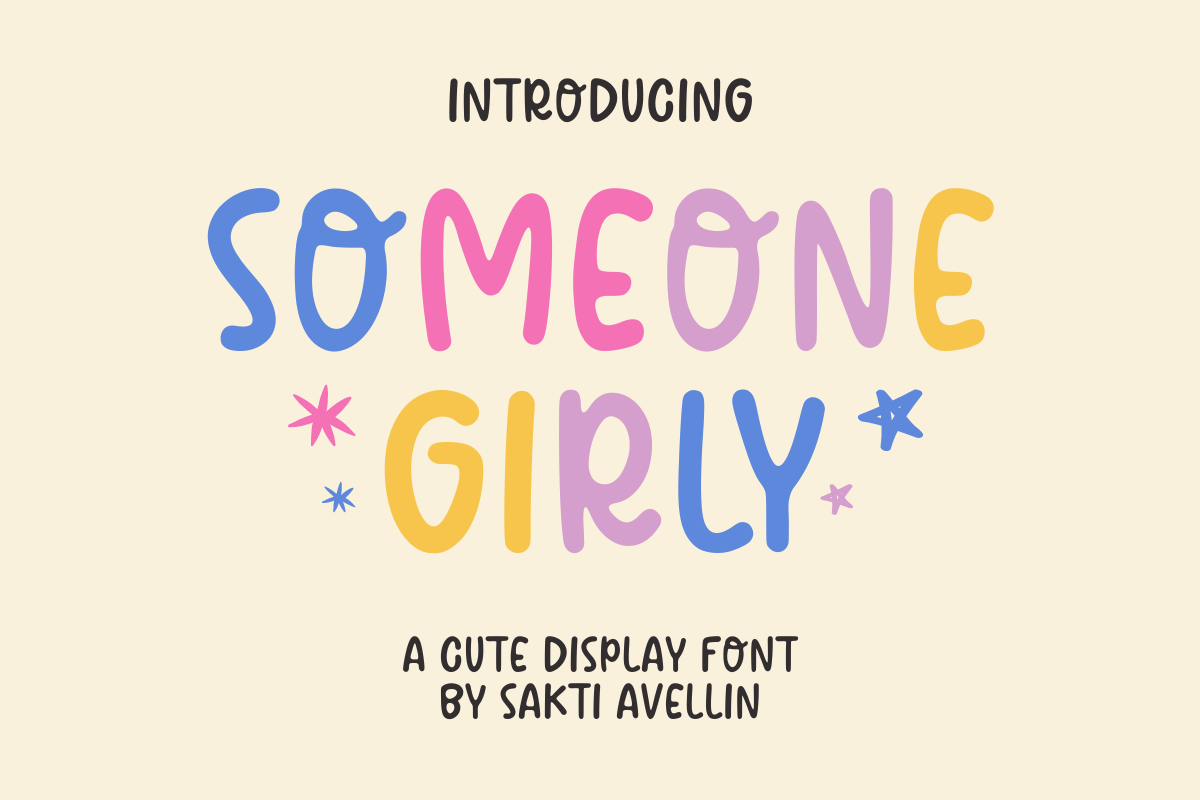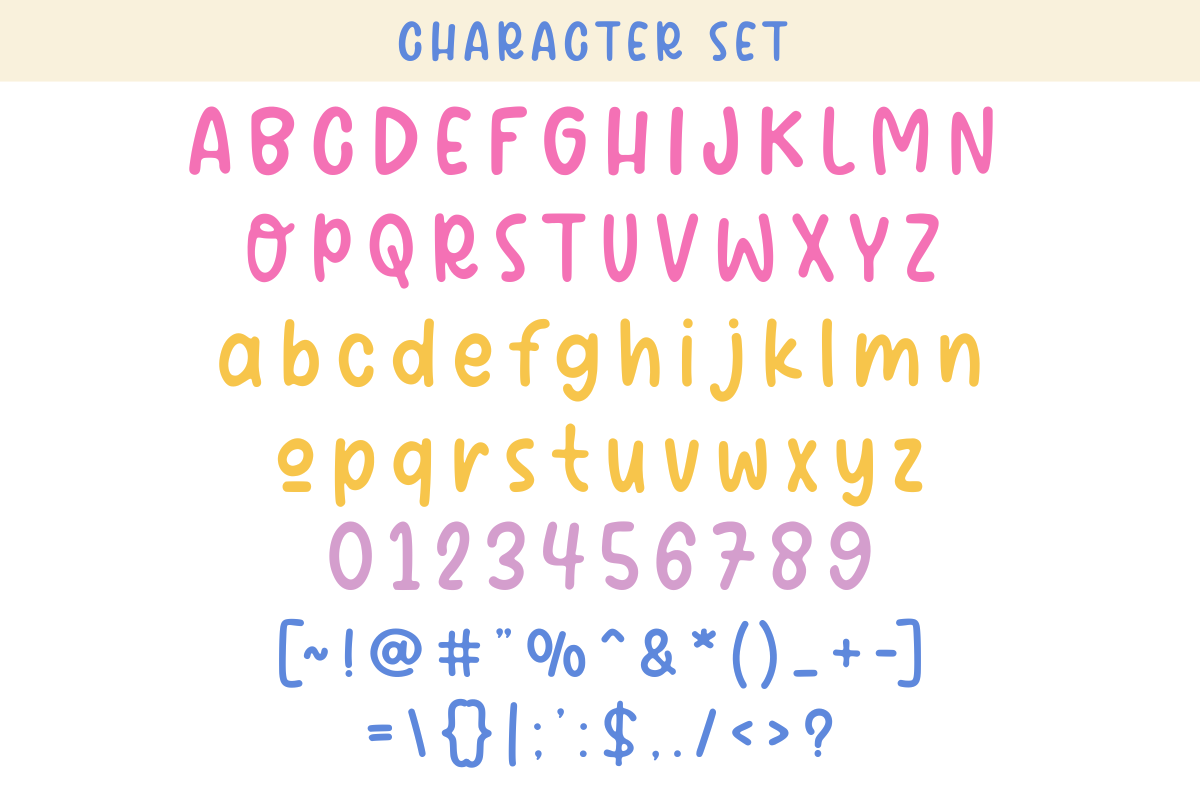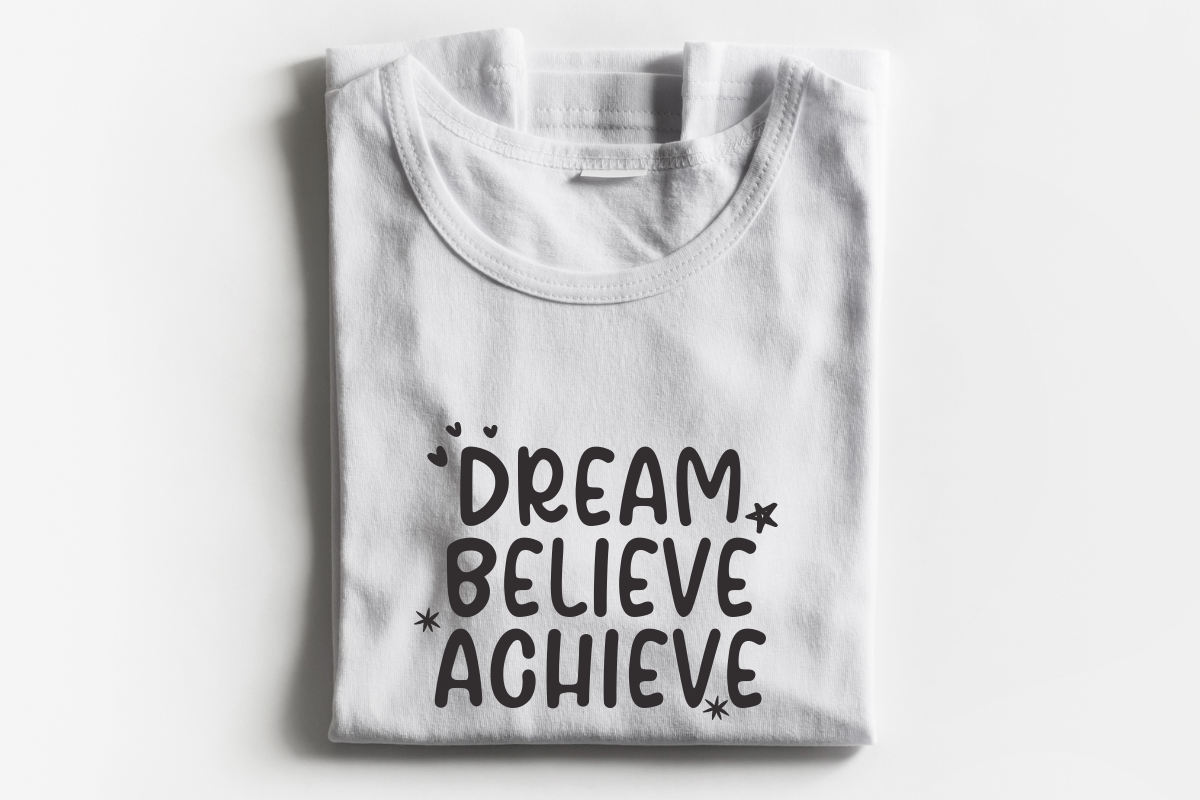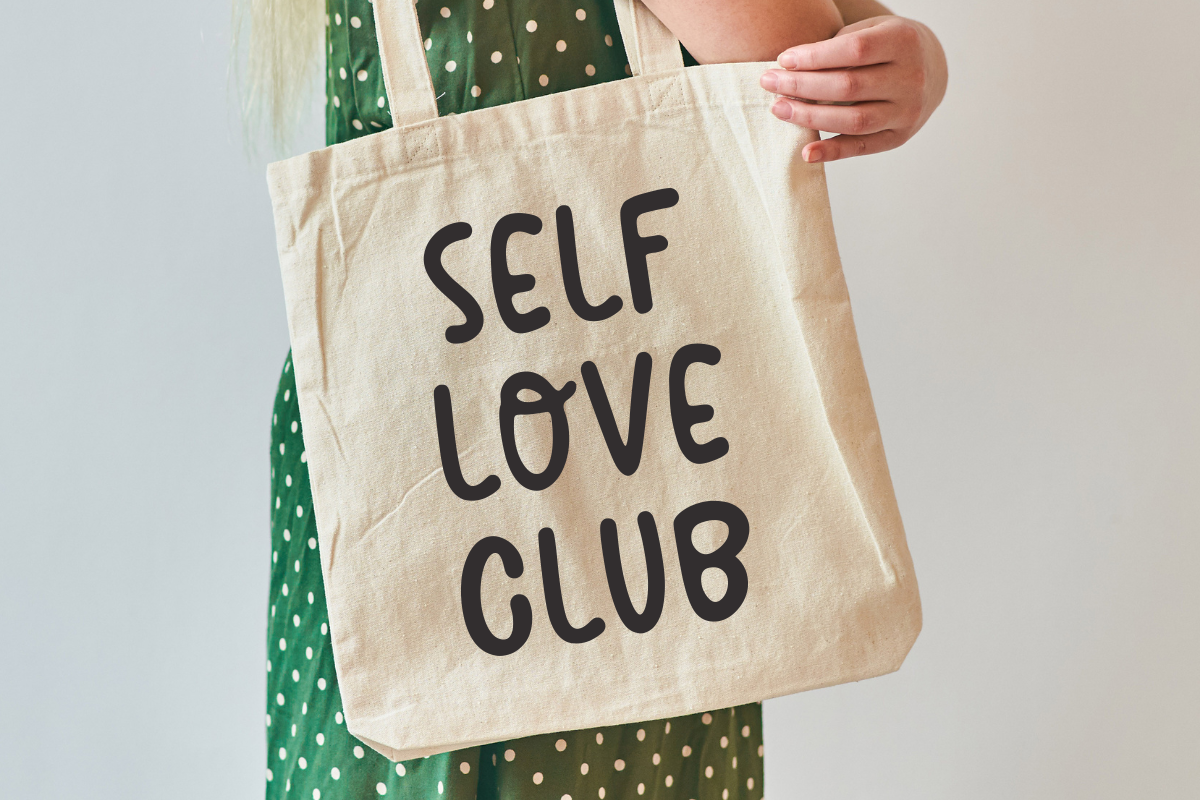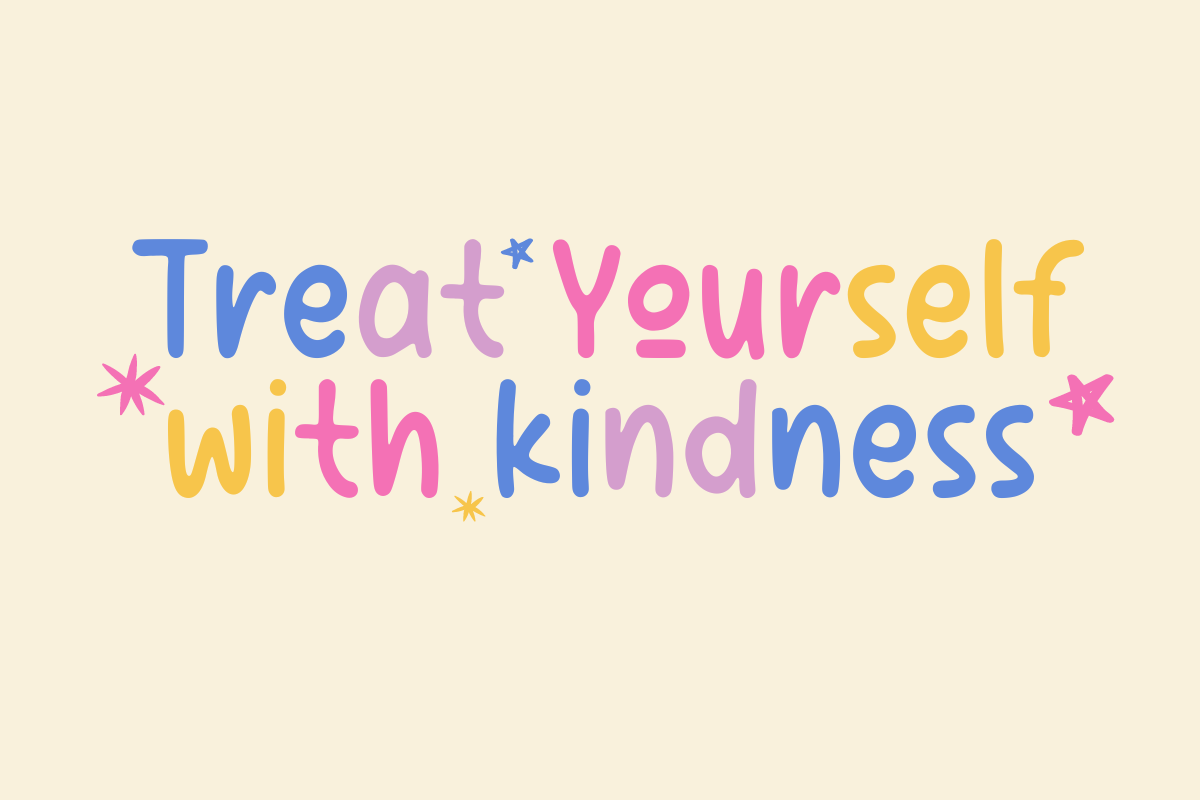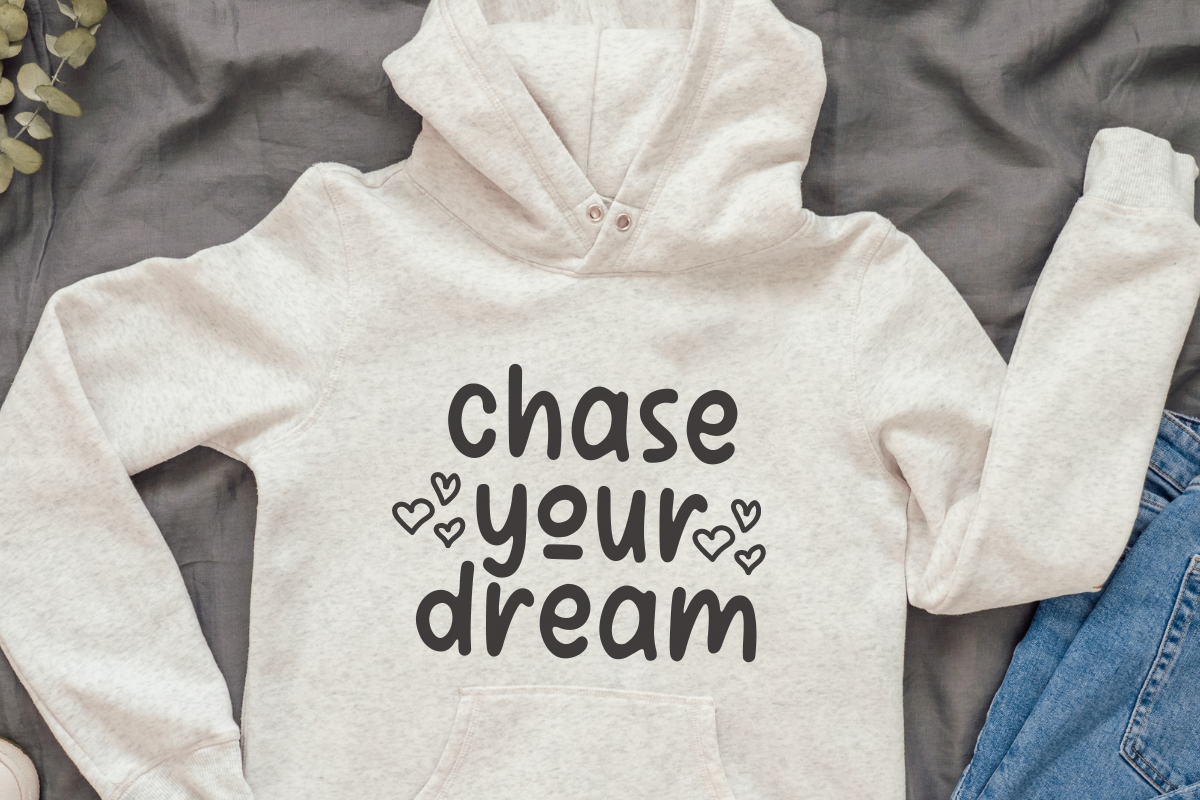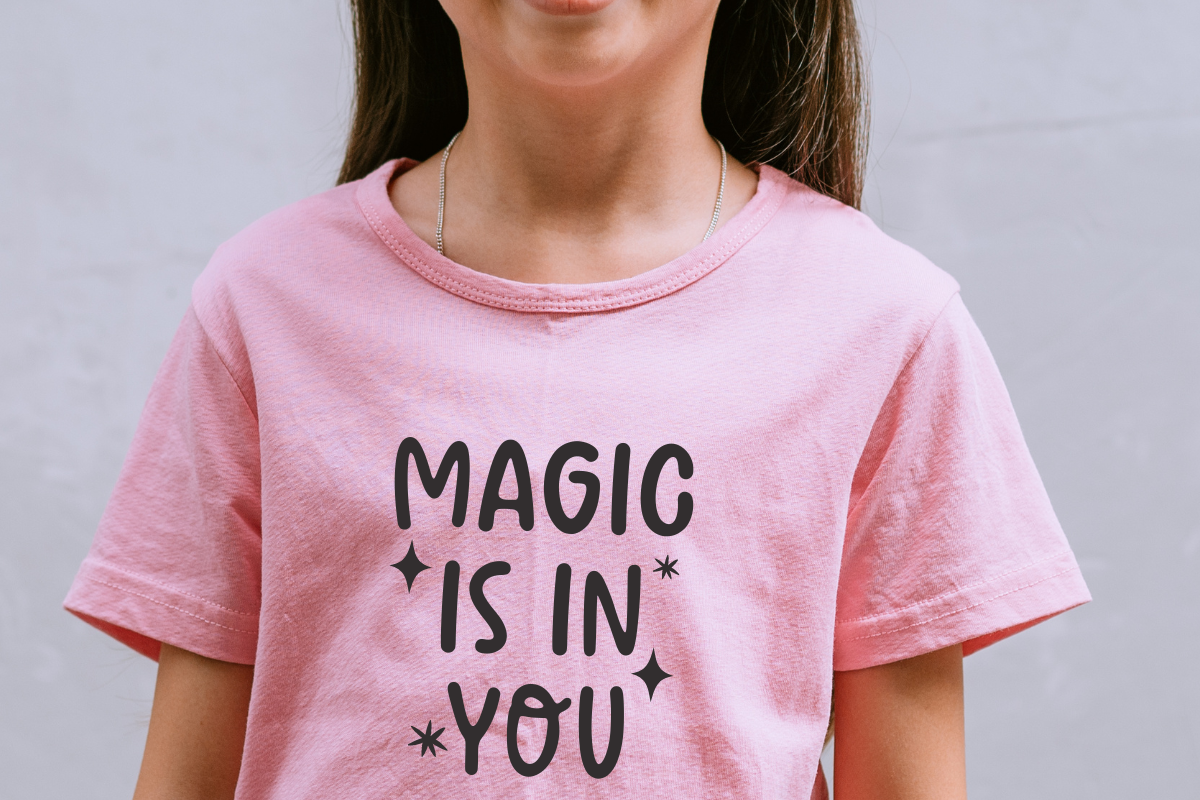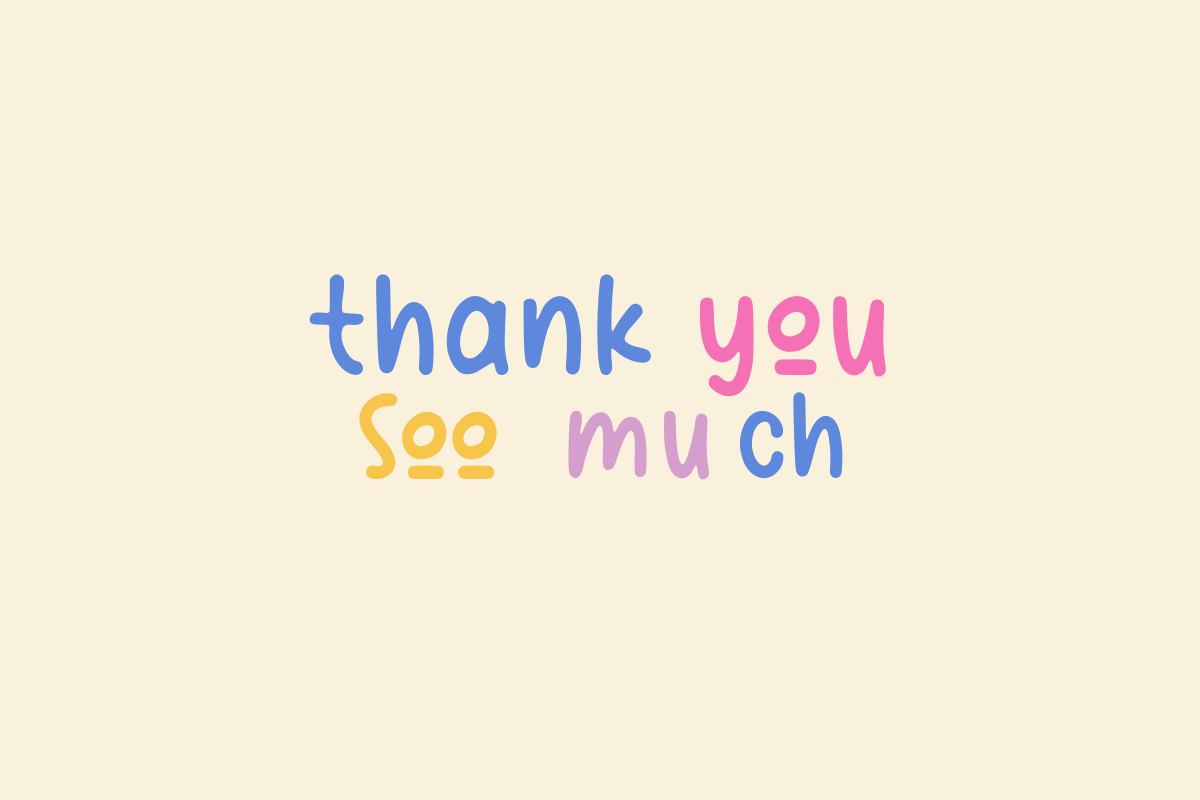
Someone Girly - Cute Display Font
Someone Girly is a vibrant, charming, and high-impact cute display font designed to bring a playful and feminine energy to your creative projects. This playful handwritten typeface features soft, rounded letterforms with a cheerful, bouncy rhythm, making it an essential choice for kids' branding, adorable sticker designs, greeting cards, and engaging social media graphics. Its friendly and high-contrast silhouette ensures it stands out as a powerful decorative font for headlines and nursery decor, perfect for designers looking for a mix of whimsical charm and modern aesthetic. Elevate your creative work with the sweet and joyful personality of Someone Girly!